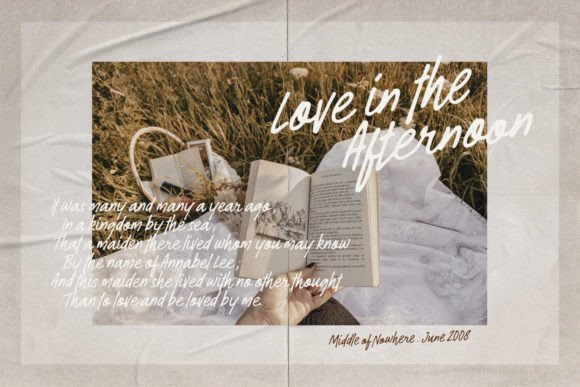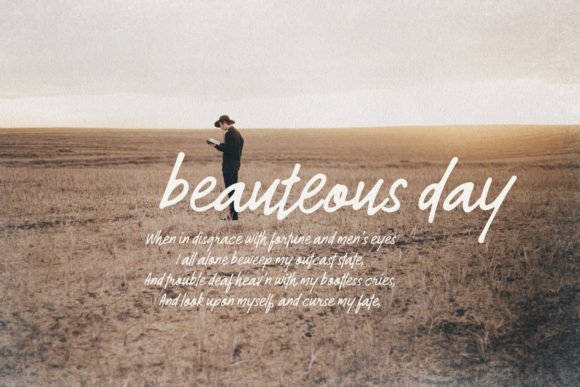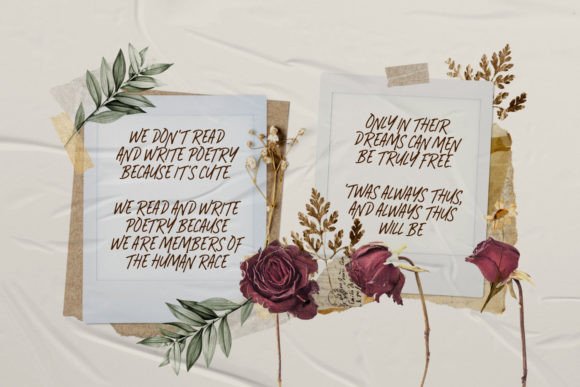
Amoretti Font
Amoretti is an expressionist handwritten typeface whose ethereal and flowing strokes perfectly reflect the soul of a poet’s work. The erratic twists and turns give the appearance of an authentic, passionate, and emotional handwritten message. This font has different iterations of each character that were made to accentuate the font’s organic appearance and convey a sense of spontaneity.